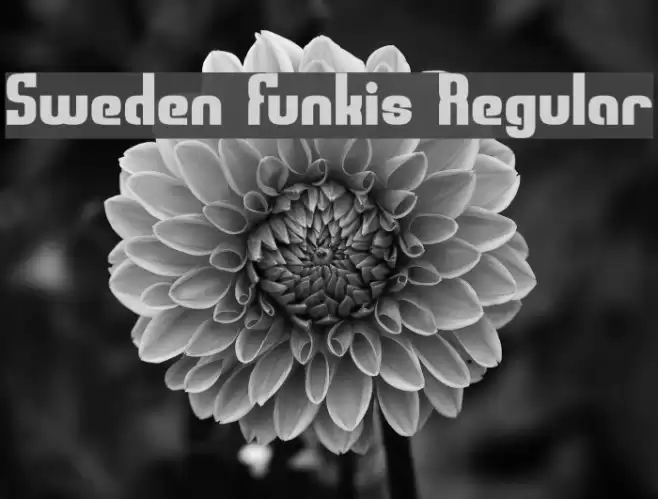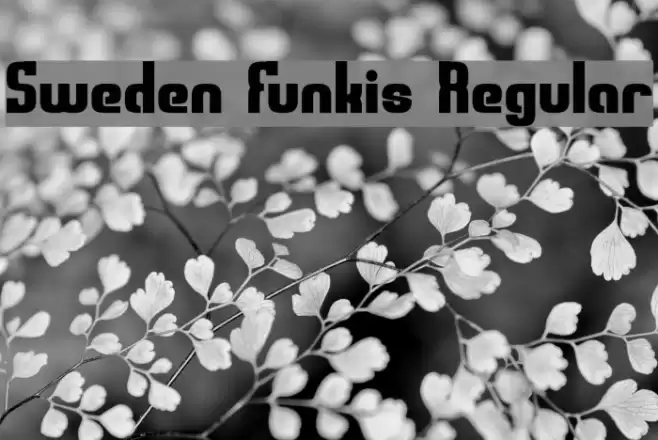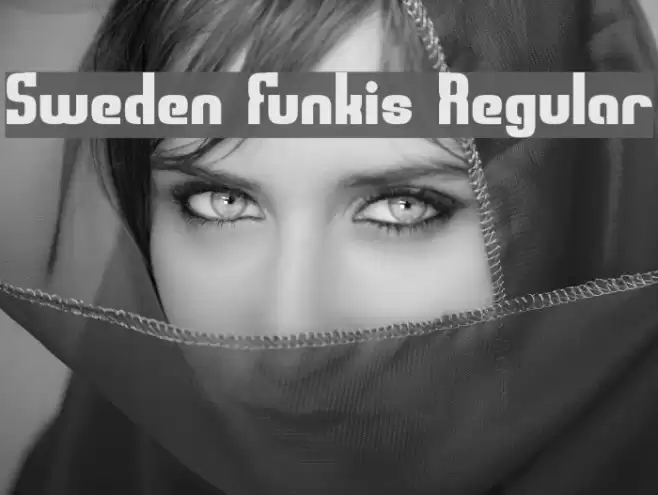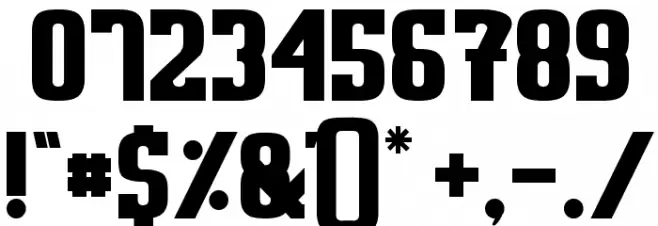
Sweden Funkis Regular Font
Sweden Funkis Regular Description
This font features a bold and geometric design, characterized by its strong, block-like structure and rounded edges. The uppercase letters are uniform in height, creating a cohesive and balanced appearance. The lowercase letters maintain the same boldness, with a slightly softer touch due to their rounded forms. Numbers and special characters follow the same stylistic approach, ensuring consistency across all elements. The font's design is reminiscent of mid-20th-century modernism, with a focus on functionality and simplicity. Its bold weight and distinct style make it ideal for impactful headlines and branding.
A bold, geometric font with rounded edges and a modernist influence from Uncategorized fonts.
- Proposed Projects: Ideal for branding, poster design, and headlines that require a strong visual impact.